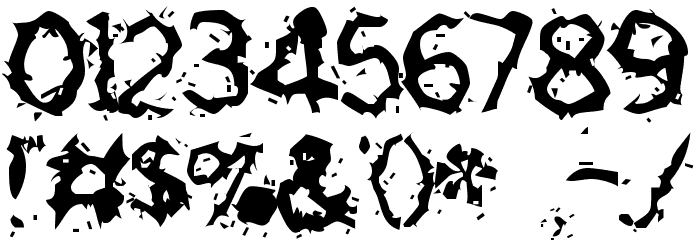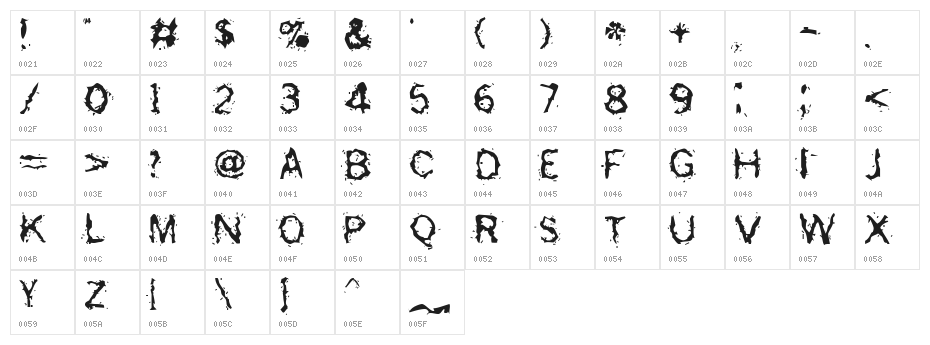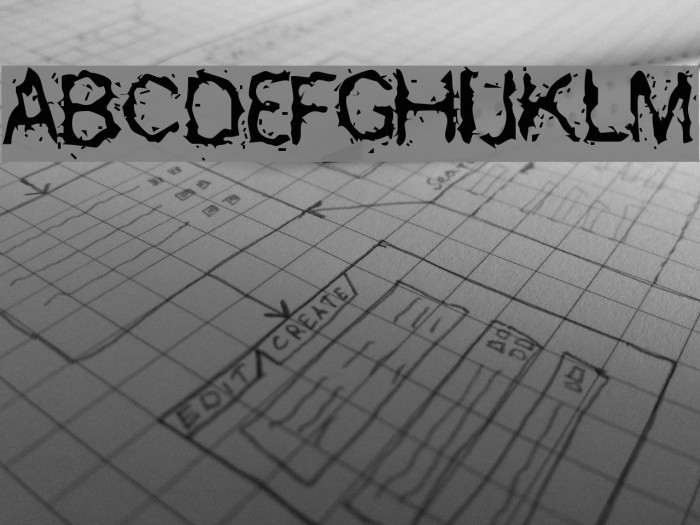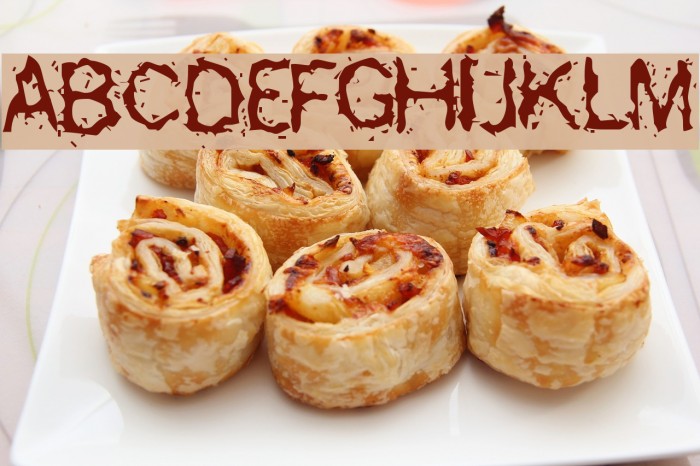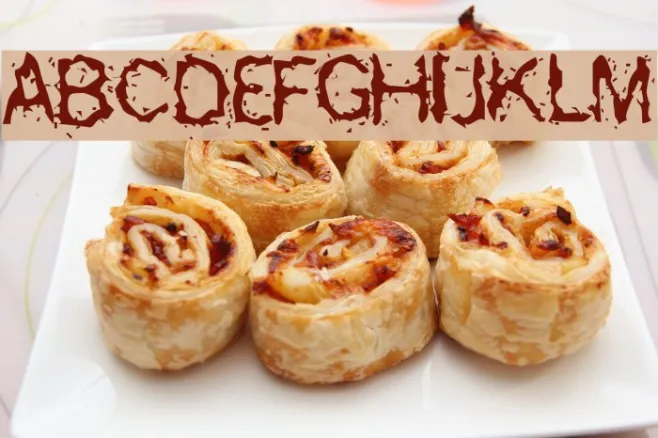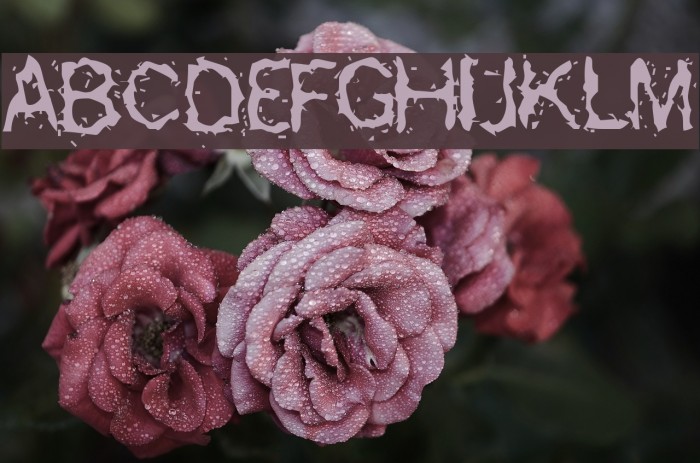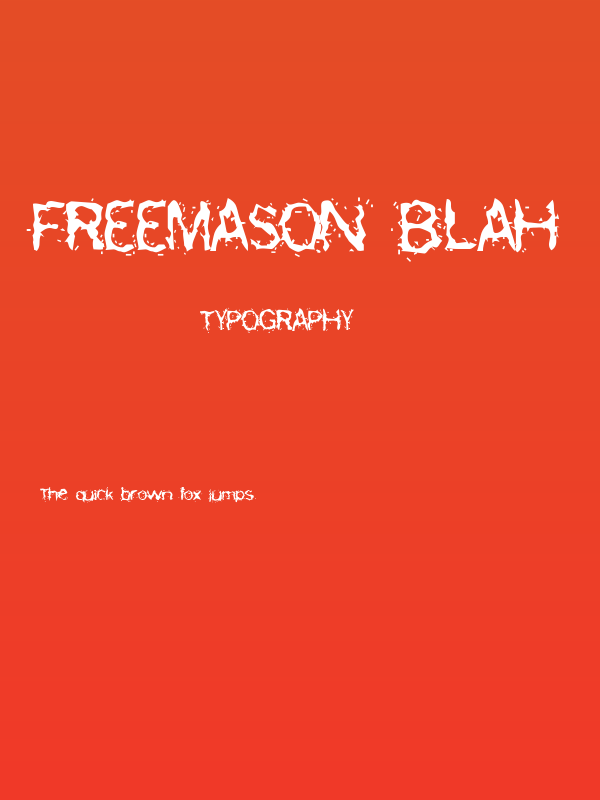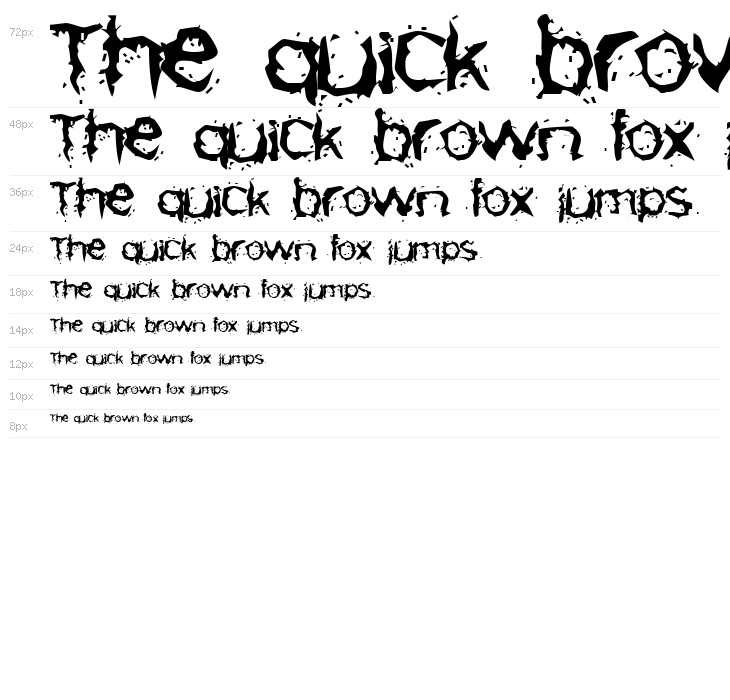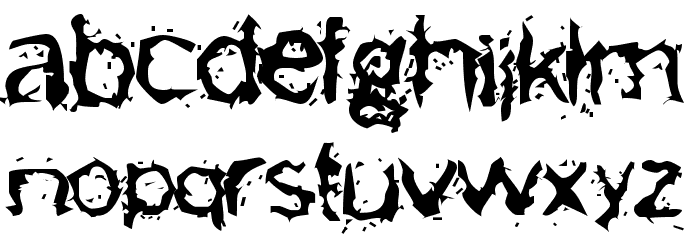
Freemason Blah Font
This font features a highly decorative and distressed style, reminiscent of grunge or urban decay. Each character is uniquely crafted with irregular edges and a rough texture, giving it a chaotic and edgy appearance. The uppercase and lowercase letters maintain a consistent theme, with jagged lines and an uneven baseline that adds to its raw aesthetic. Numbers and special characters follow the same design principles, ensuring a cohesive look across all glyphs. The font's distinctive style makes it stand out, ideal for projects that require a bold and unconventional typeface.
| Proposed Projects | Ideal for album covers, street art designs, edgy posters, and alternative branding projects. |